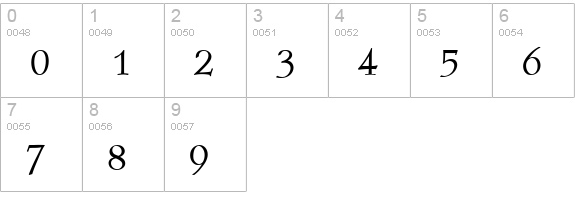
Post Mediaeval Regular Font Details
Post Mediaeval Regular is the standard, neutral variant in the Post typeface family \xE2\x80\x94 well suited to general body text, paragraphs, and standard typographic work.
Post Mediaeval Regular is a classic and elegant font that combines traditional elements with a modern touch. Its timeless design makes it perfect for a wide range of projects, from formal invitations to branding materials. The font features clean lines and well-balanced proportions, giving it a professional and sophisticated look. One of the best things about Post Mediaeval Regular is that it is free to download at FontsMarket.com. This means that you can easily access this high-quality font without any cost, making it a great choice for designers and creatives looking to add a touch of refinement to their work. Whether you're working on a print project or a digital design, Post Mediaeval Regular is sure to enhance the overall aesthetic and make your work stand out. Download it today and elevate your typography game!